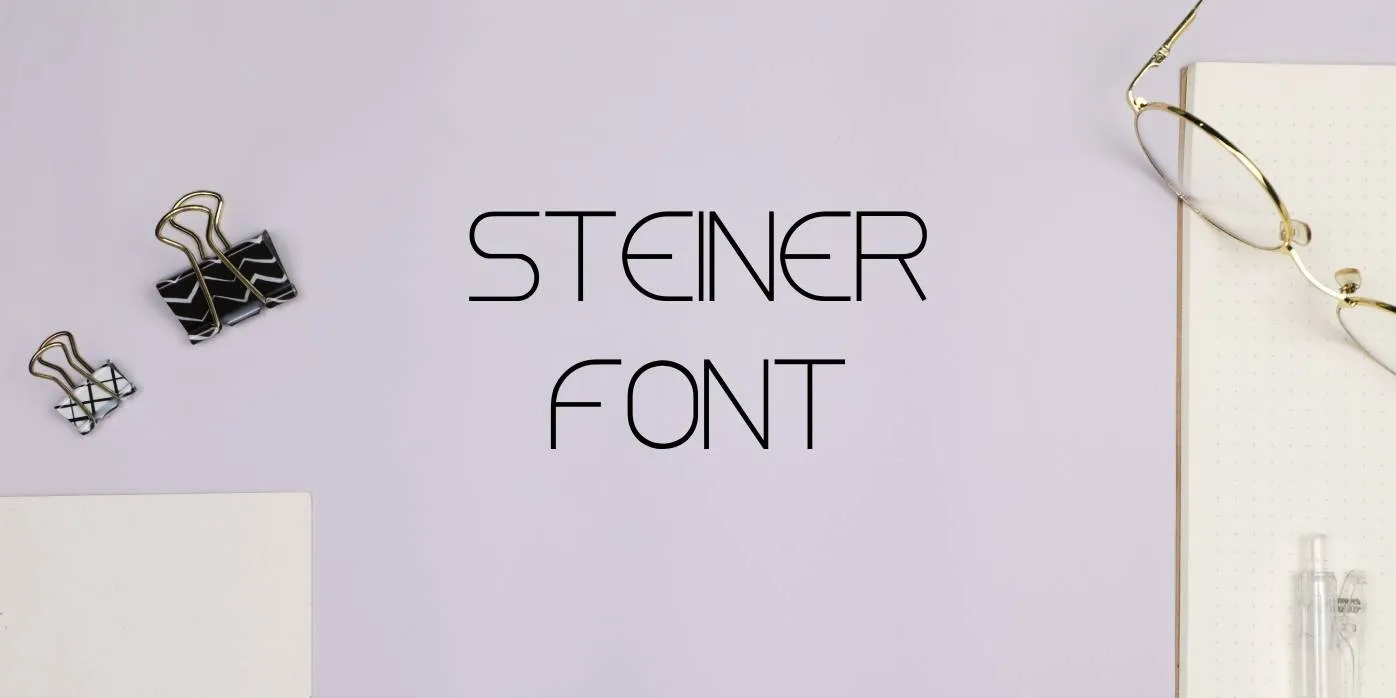
Steiner Font
Steiner Font is one of the best and basic fonts that can be fit in any logo design. It belongs to a Basic Font family typefaces. The designer of this elementary font is Gabriele Magurno. It has a TTF feature and can be downloaded from our website.
This font is common for logo designs and other extensive designs because of its general look and shape. If we talk about its glyphs the font family comes with 76 glyphs and 79 characters. The font has the ability to support a lot of languages and is easy to download from our website. This typeface contains Both Uppercase and Lowercase Letters, Numbers, and some useful symbols as well.
It has many users and downloaders because of its universal style. Its characters include Latin-1 Supplement 2, Basic Latin 76, Currency Symbols 1, Greek and Coptic 1, etc.